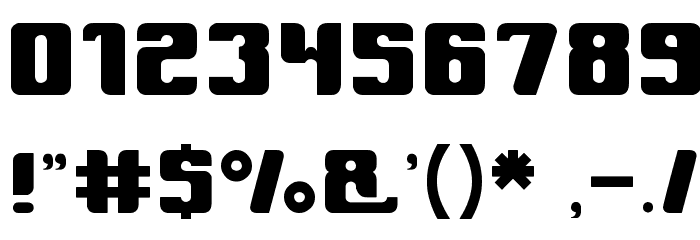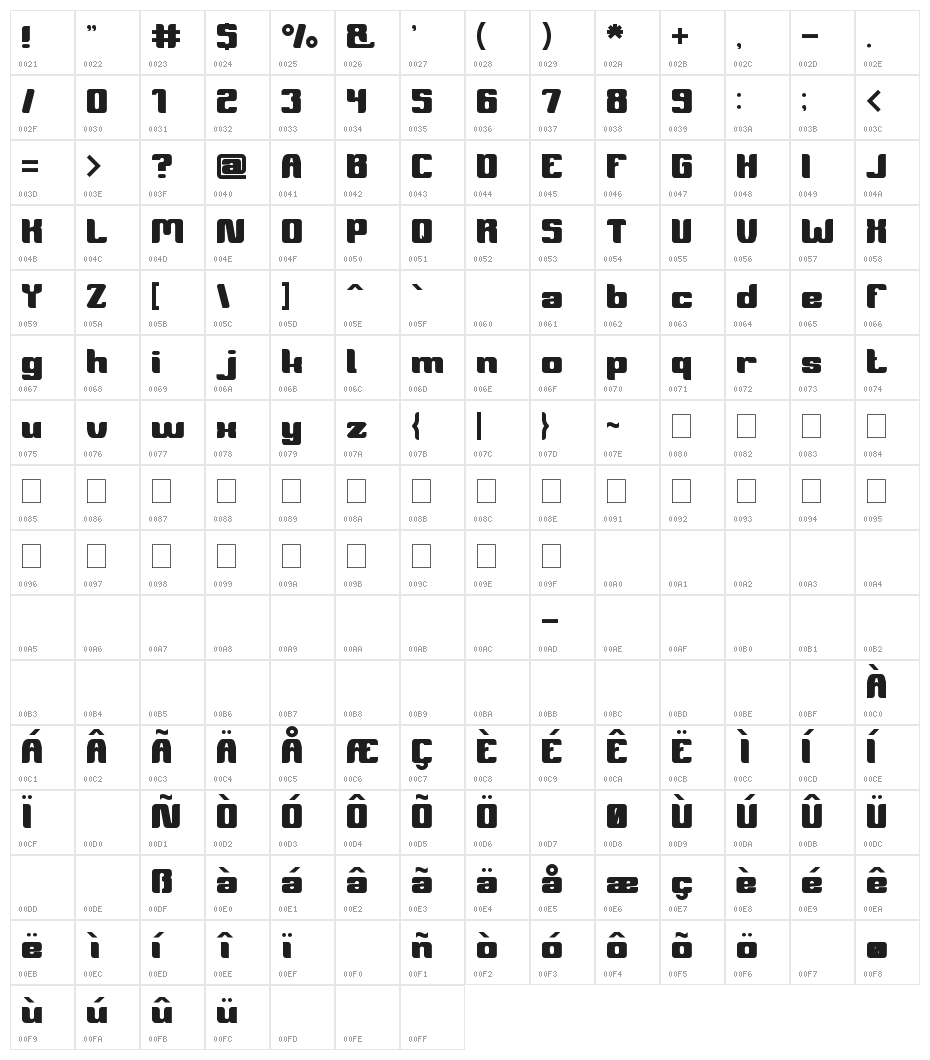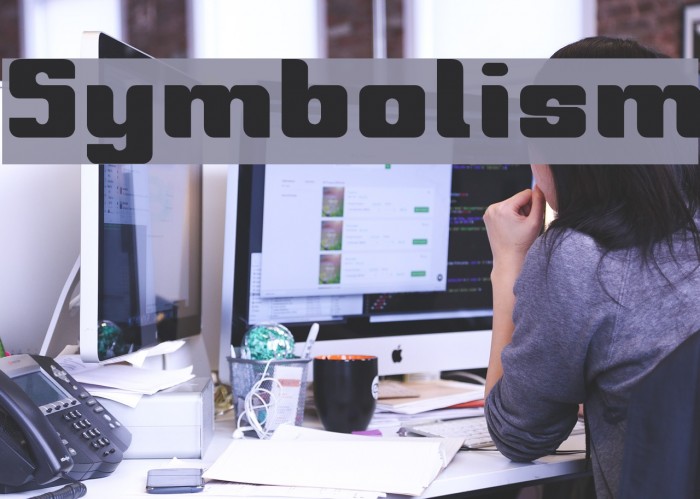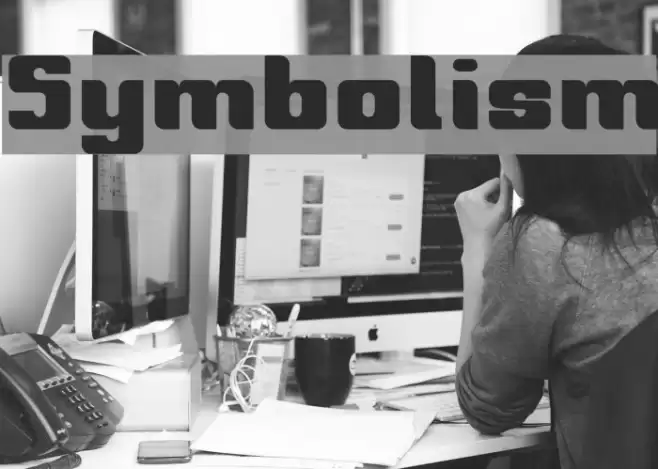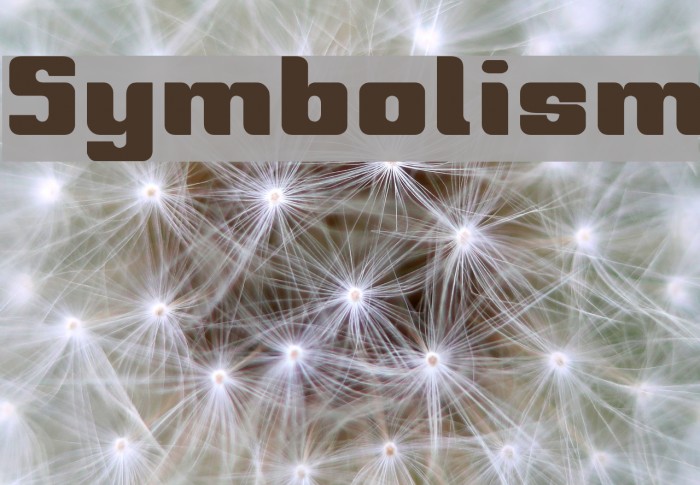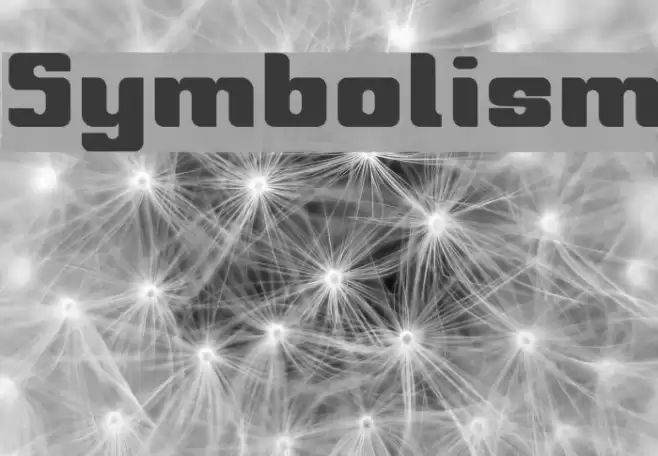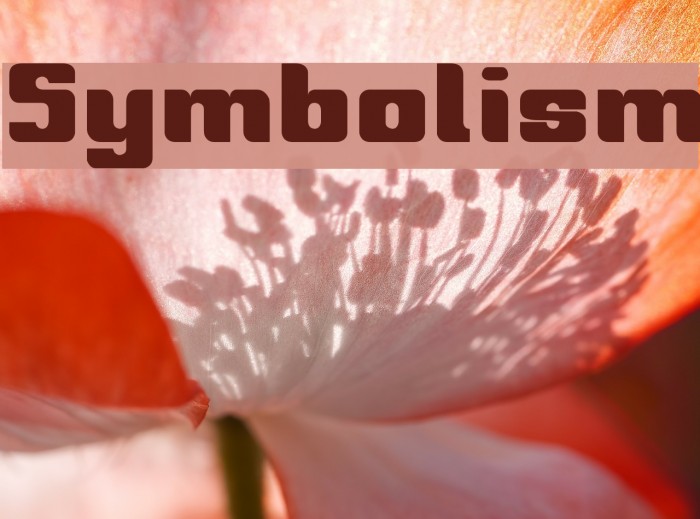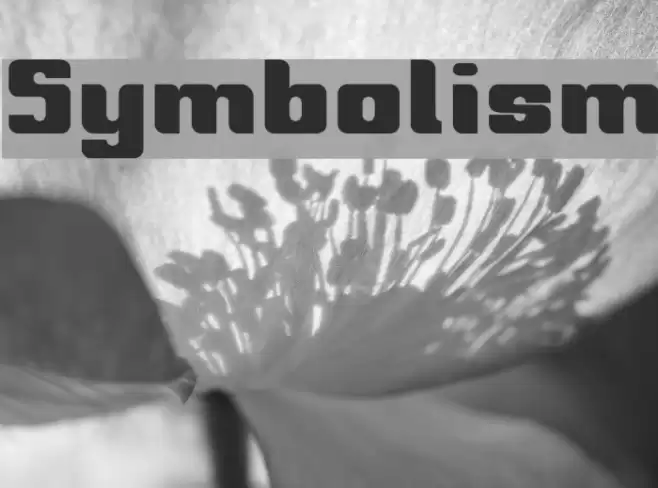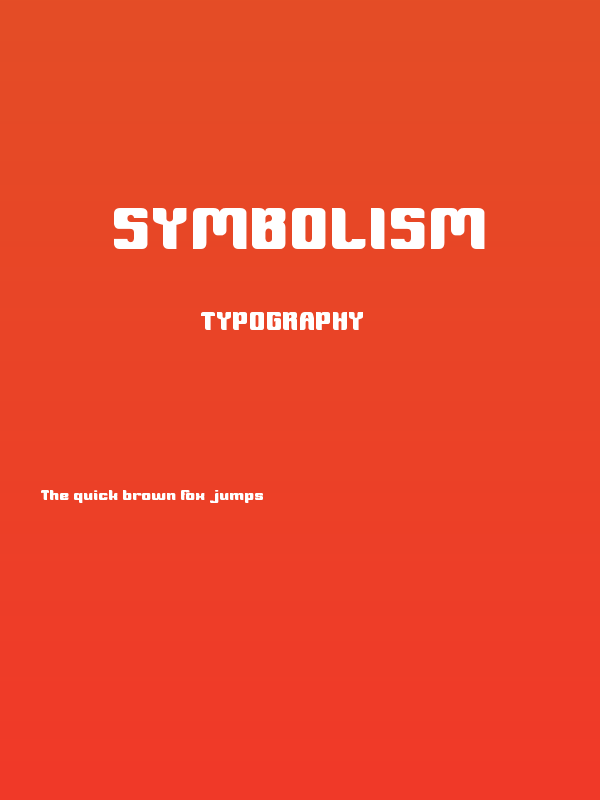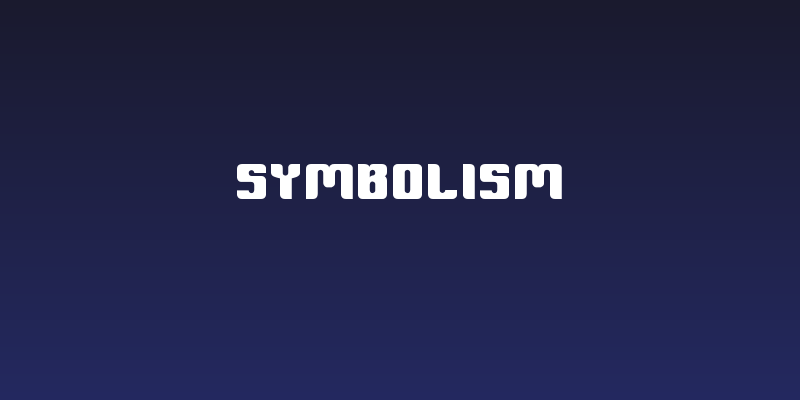
Symbolism Font
Symbolism Description
This font features a bold and robust design with thick, uniform strokes that convey a sense of strength and stability. The characters are rounded at the edges, giving them a slightly softened appearance despite their overall boldness. The uppercase and lowercase letters maintain a consistent height, contributing to a cohesive and balanced look. The numerals and special characters follow the same design principles, ensuring uniformity across all glyphs. This font's style is reminiscent of vintage signage, making it both eye-catching and legible.
| Proposed Projects | Ideal for branding, posters, and signage that require a strong, vintage aesthetic. |